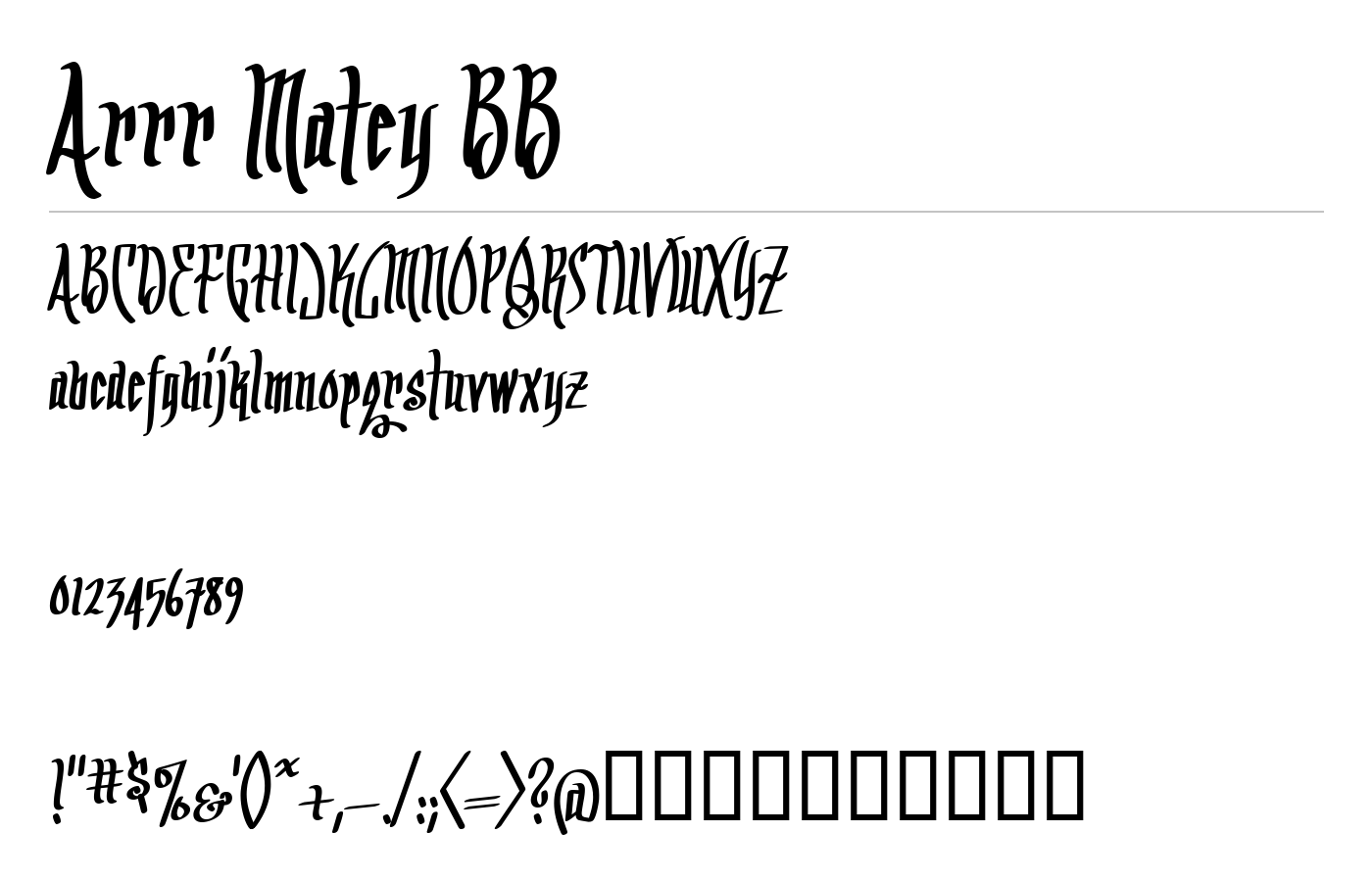
Arrr Matey BB is a tall, narrow display font with a whimsical and pirate-inspired flair, featuring sharp, irregular strokes and a hand-drawn, calligraphic feel. Its dramatic, uneven letterforms and playful curves evoke a sense of adventure and fantasy, making it ideal for themed designs, posters, and branding that seek a bold, distinctive character with an energetic, quirky personality. This font works best in eye-catching headlines or decorative uses where its unique style can really shine.
Arrr Matey BB Font